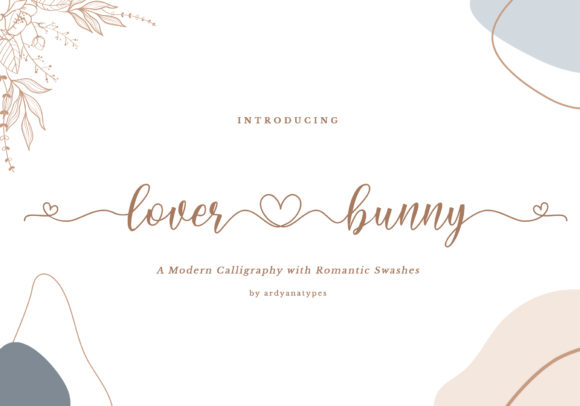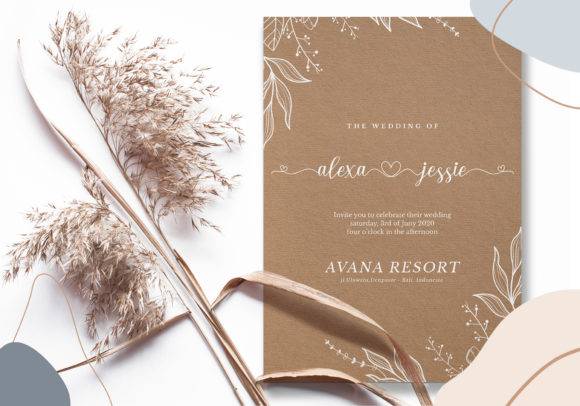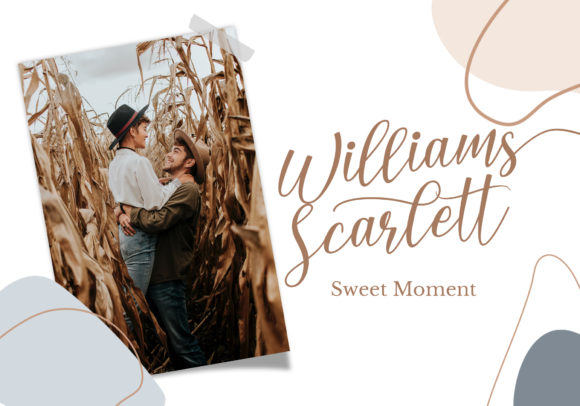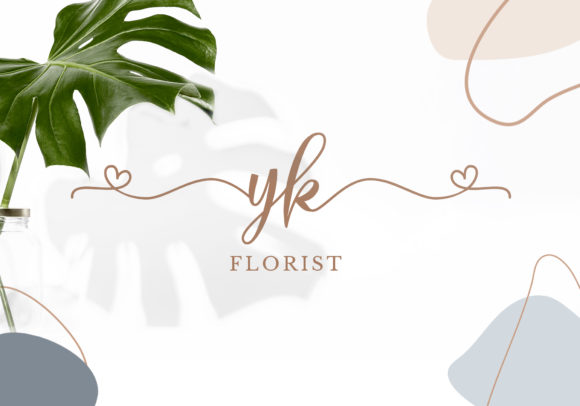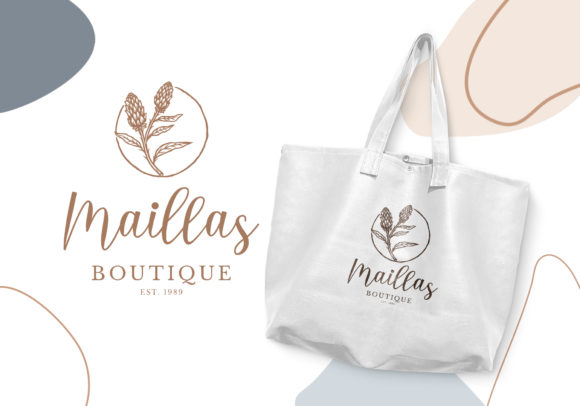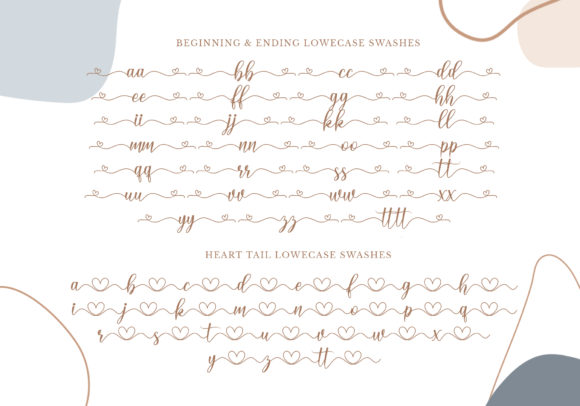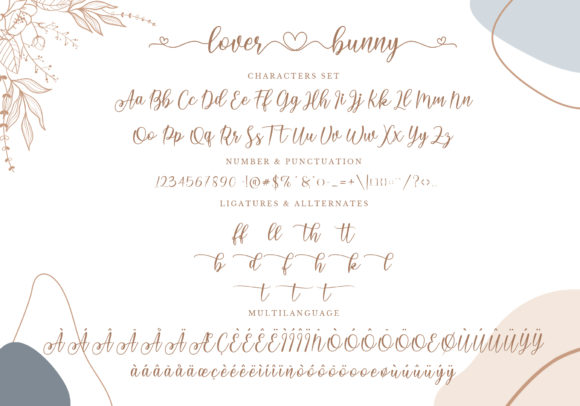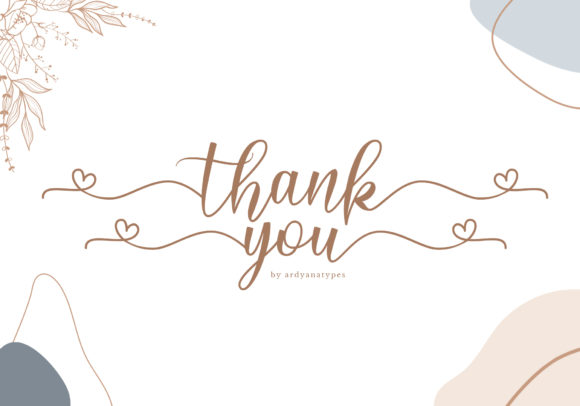
Lover Bunny Font
About Lover Bunny Font
Lover Bunny is a cute script font. This is a beautiful combination of timeless elegance and authentic calligraphy. It features an incredibly classic style, while still keeping a friendly feel. Lover Bunny is the perfect font for making original and outstanding designs.